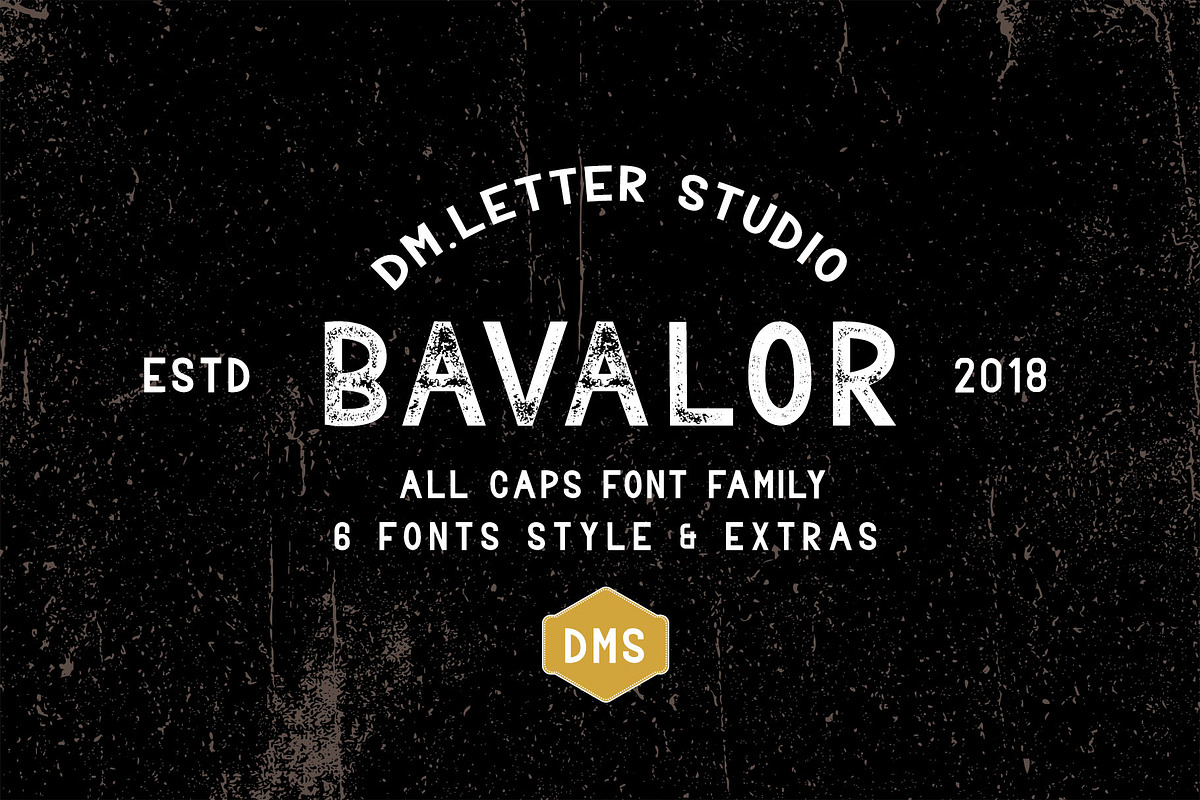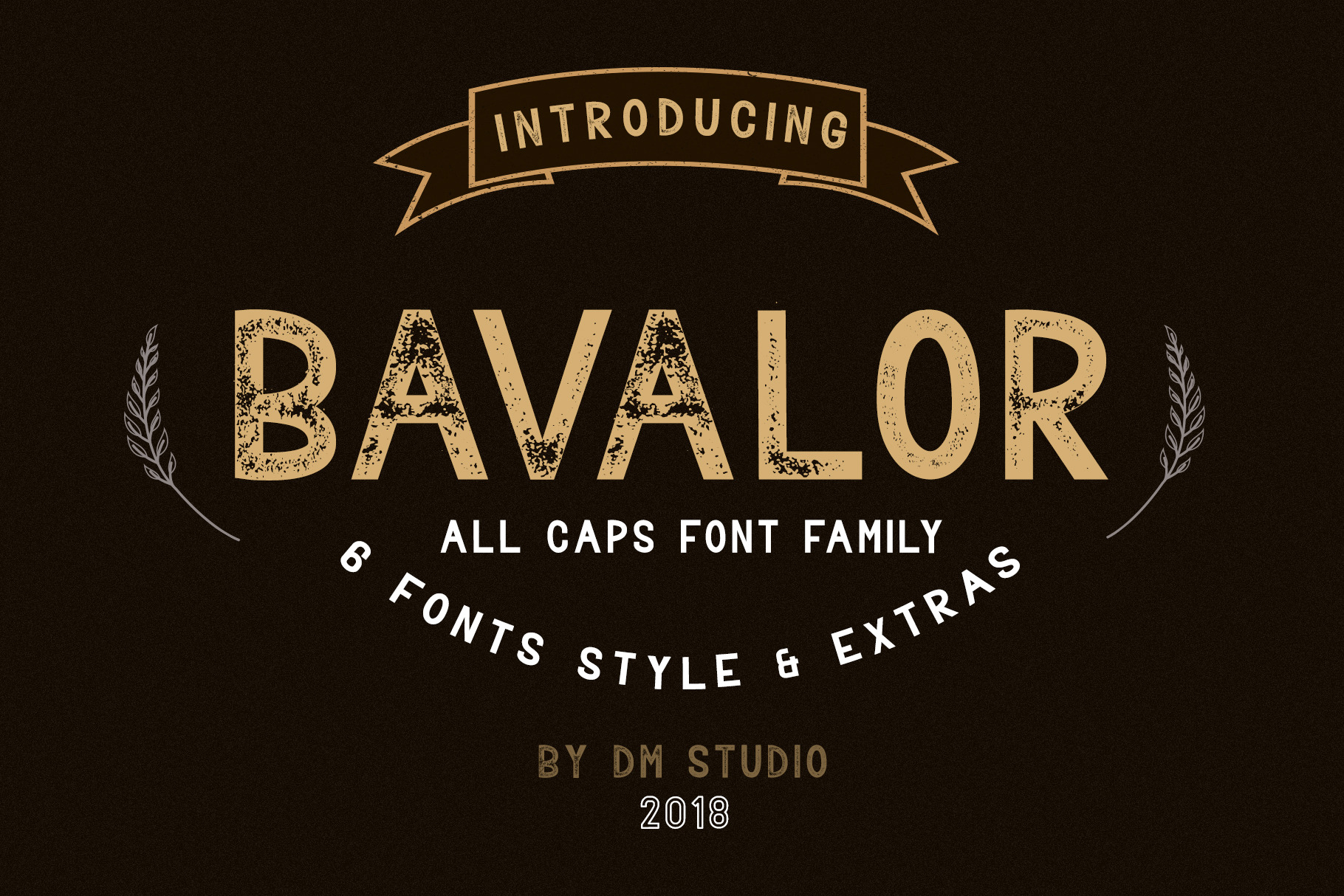
Bavalor - All Caps Font Family
Introducing, BAVALOR the all in caps sans serif-font family. It includes regular, outline, and grunge version with normal & italic style. Bavalor has 6 OTF & TTF font files. Choose freely for your desired designs, pair between each version but also will great if you make it stand alone.This collection will create a unique, powerful design for any projects.
Bavalor's features :
ALL IN CAPS Characters set
Numerals
Punctuation and symbols
Multilingual supports
Collection of useful shapes & banners